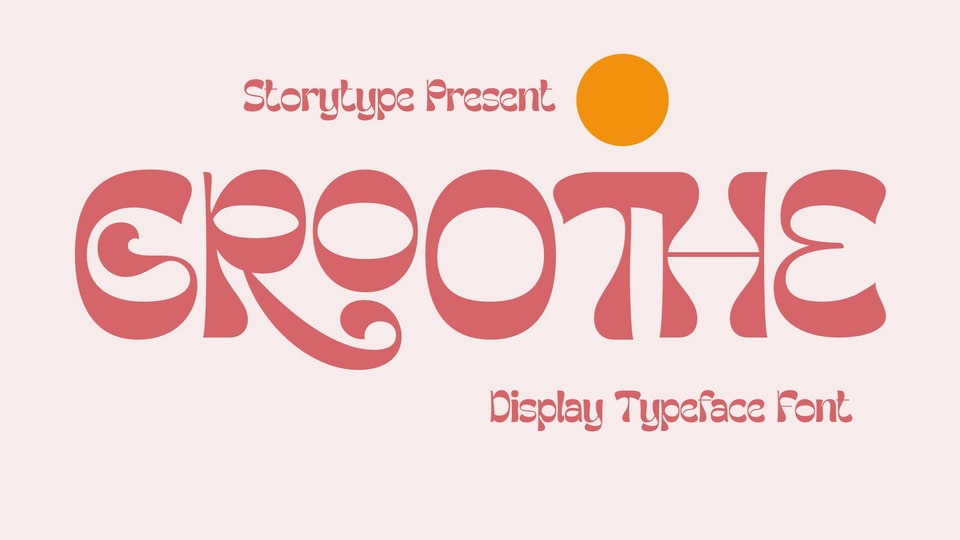
Download Groothe font a groovy and funky display typeface that has own unique style and retro vibe. Groothe font is perfect for a logo, book or movie title design, fashion brand, magazine, clothes, lettering, quotes, and so much more.